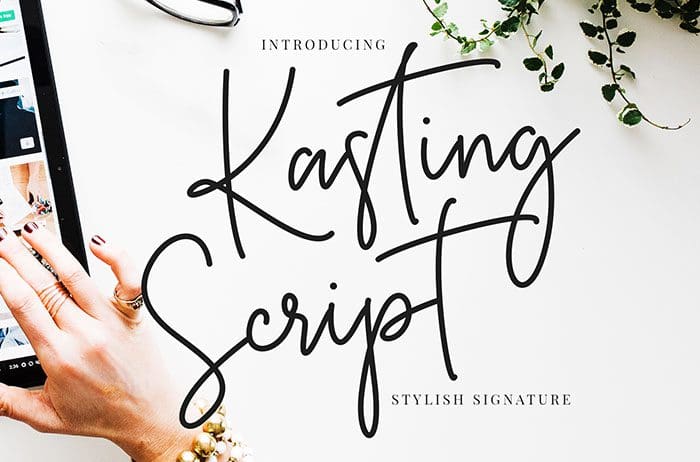
Kasting Script Font
Kasting Script Font is a stylish, fresh new handwritten signature with a classy touch, it’s perfect for your latest project. Thanks to Creatype Studio for sharing this font! Take a look at this portfolio for more of his stunning fonts.